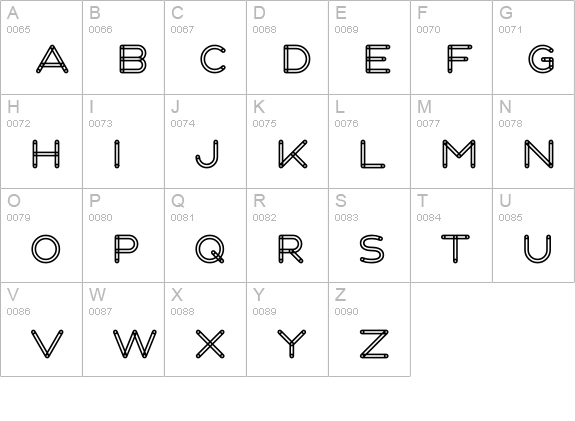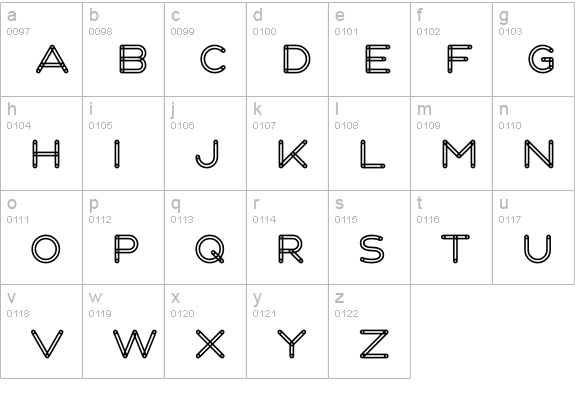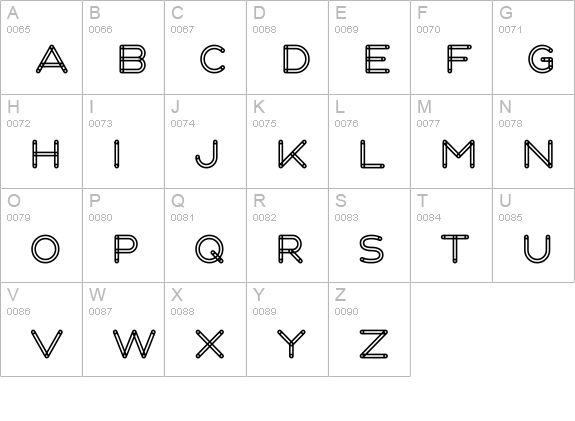
Fun City Level 2 Frame Font Details
Fun City Level 2 Frame font is a playful and dynamic typeface that exudes a sense of fun and excitement. With its quirky and irregular shapes, this font is perfect for creating eye-catching designs that stand out from the crowd. Whether you're working on a poster, flyer, or branding project, Fun City Level 2 Frame font will bring a lively and energetic vibe to your work. The best part is that Fun City Level 2 Frame font is available for free download at FontsMarket.com. So you can easily add this unique and captivating font to your collection without any cost. Don't miss out on the opportunity to enhance your designs with this fun and versatile typeface. Download Fun City Level 2 Frame font today and let your creativity shine!